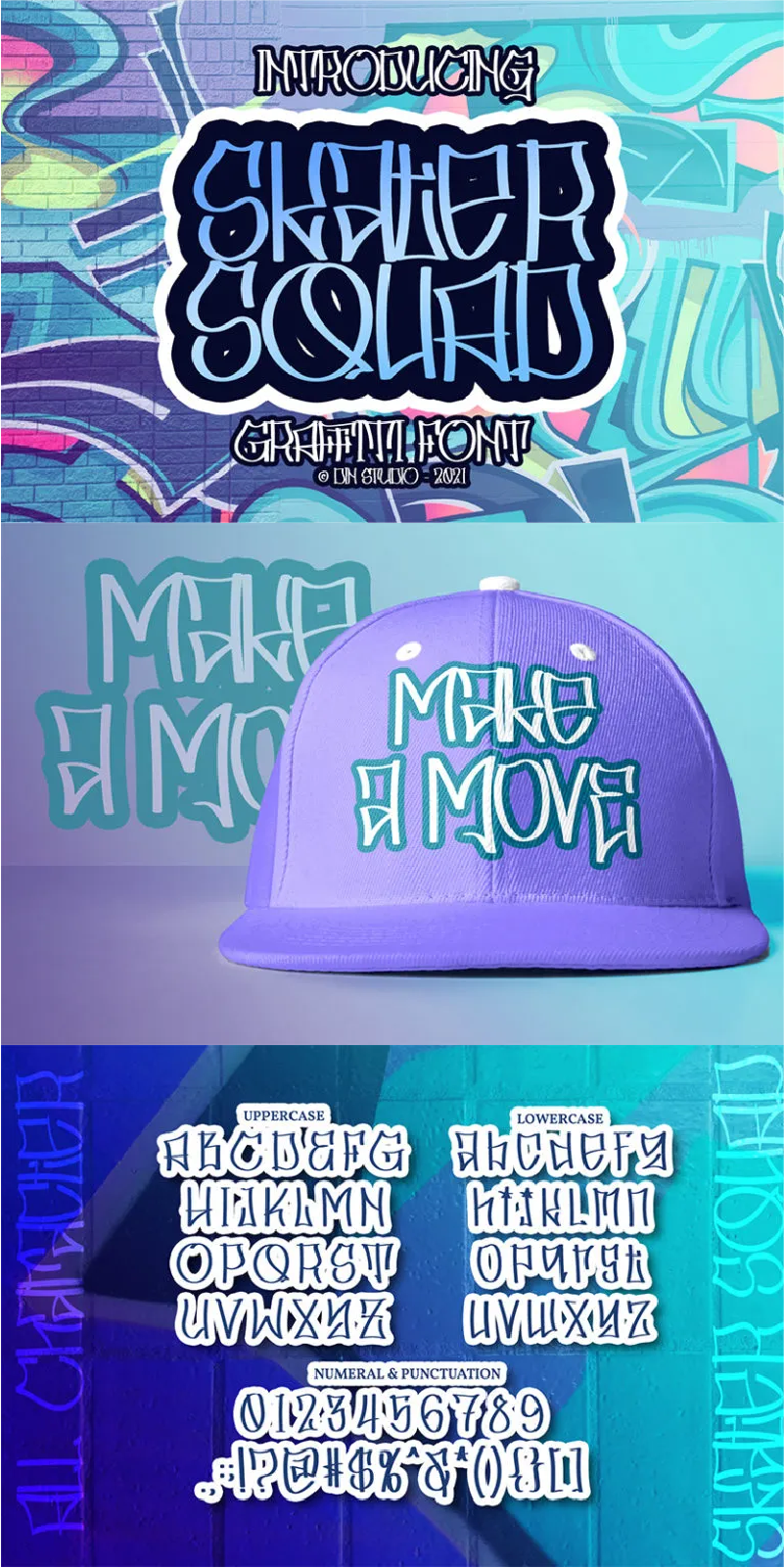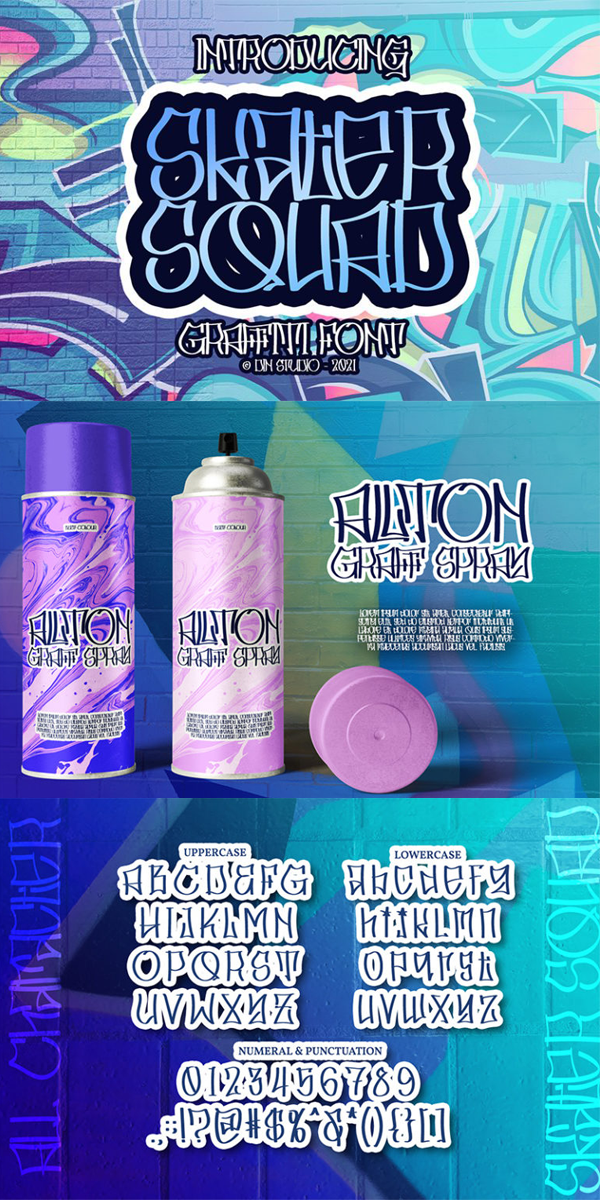
Skater Squad Font
About Skater Squad
Introducing Skater Squad – A Grafiti Font
It is a bold and angular with a distinct street vibe. This font can be used for a host of different content needs and projects. Create gorgeous printed quotes, standout packaging, or beautiful t-shirts! You can even use it to create amazing headings, logos, menus, and social media graphics.